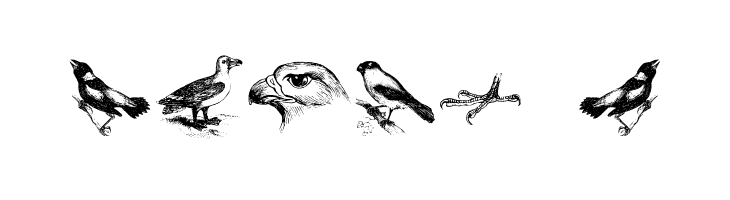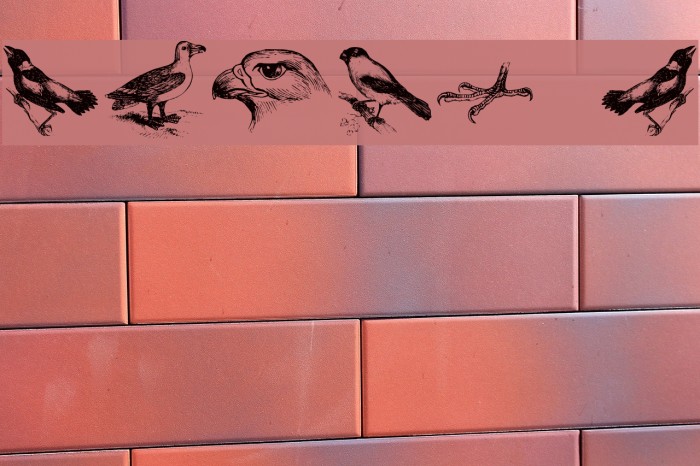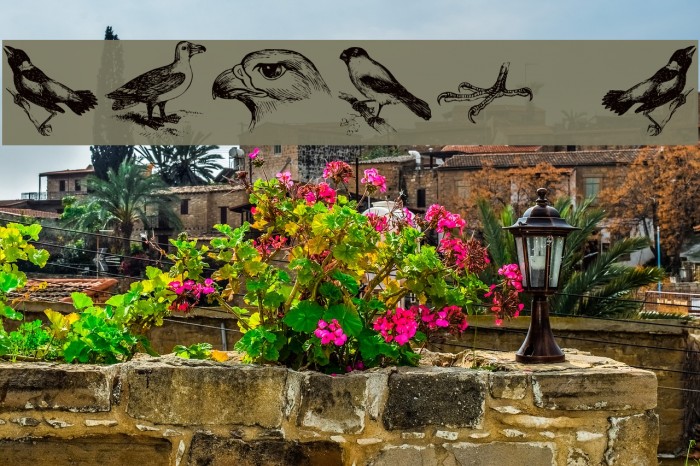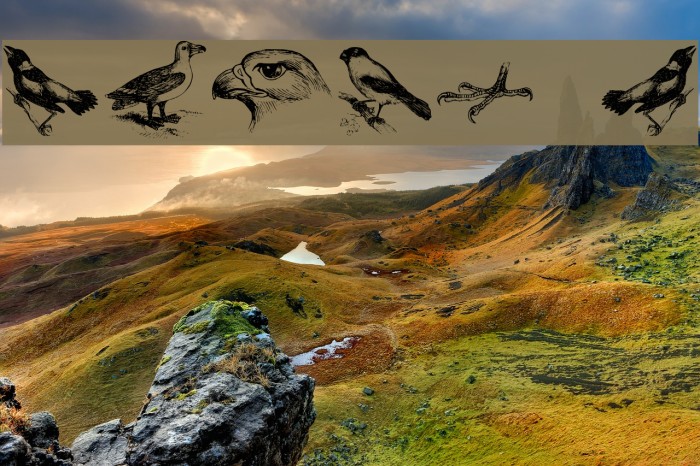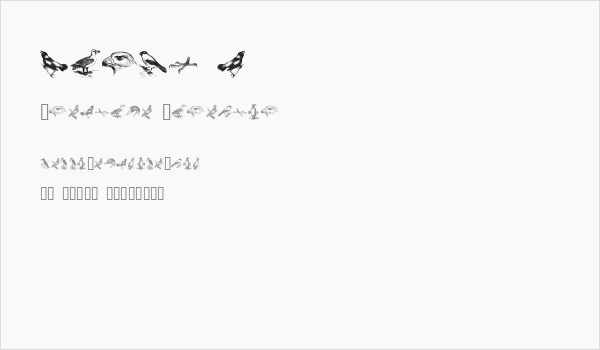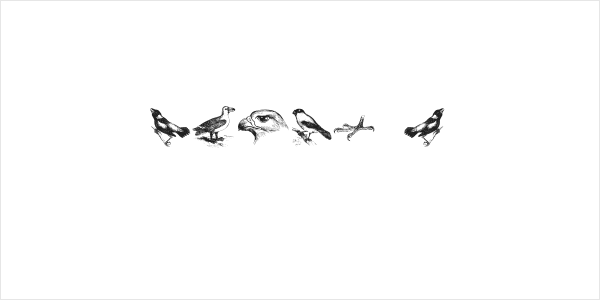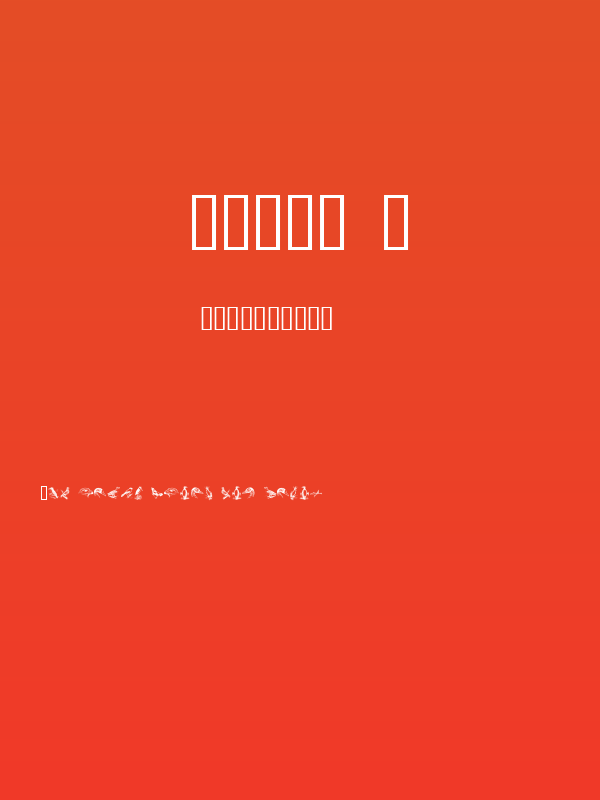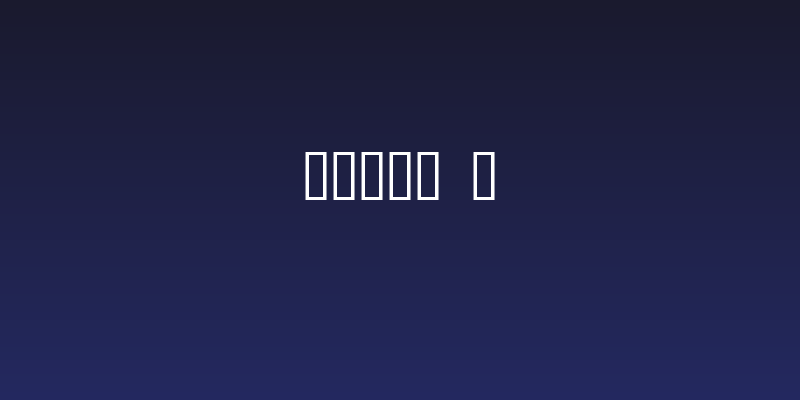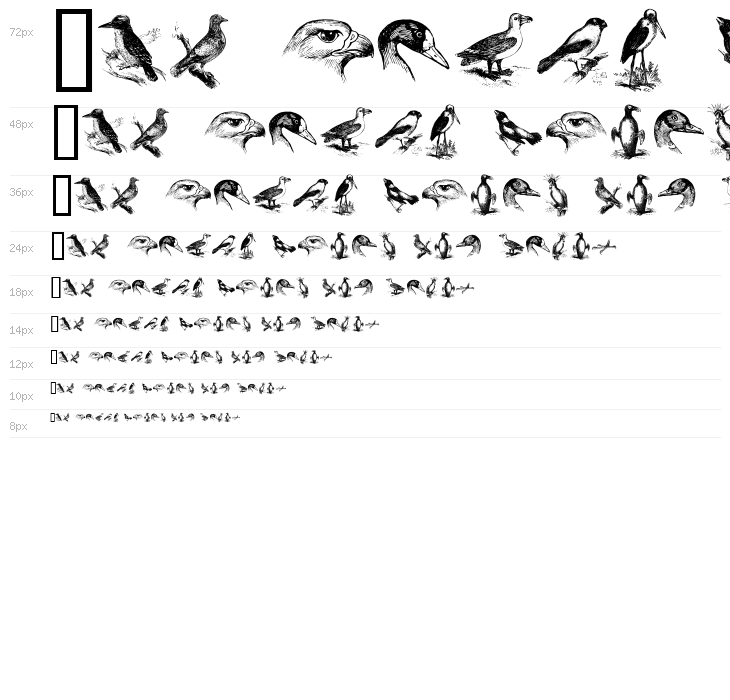
birds a Font
birds a Description
A decorative font featuring detailed, hand-drawn illustrations of various birds in place of standard letterforms, with each character represented by a unique bird or bird-related element. The style is intricate and naturalistic, evoking vintage scientific illustrations.
| Overall Style | Decorative, Vintage, Naturalistic |
| Use Case | Logos, Headlines, Posters, Artistic projects |
| Proposed Projects | Nature posters, educational materials, children's books, themed event invitations, creative branding. |